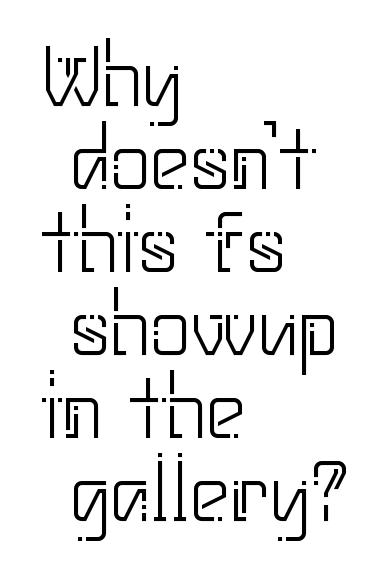
This is excellent, thalamic and neither familiar nor obscene.
Very nice! 10/10
Super cool. Back on form.
Another well designed original.
As always, a great design. 10/10
Should show up in the Top Pick gallery... Also my faves.
Thanks for the likes. This fluke turned out better than expected. I am just filling some down time.
Super! Absolutely love the style...
But why so many "R"? :P
Very cool Design
@cablecomputer: I was just trying out different heights of the R crossbar. Sorted.
Congratulations! FontStruct Staff have deemed your FontStruction worthy of special mention. “fs Praxis” is now a Top Pick.
Well deserved top pick.
You know what I love? The Q.
Mind=Blown. Awesome.
this definitely should be a top pick.